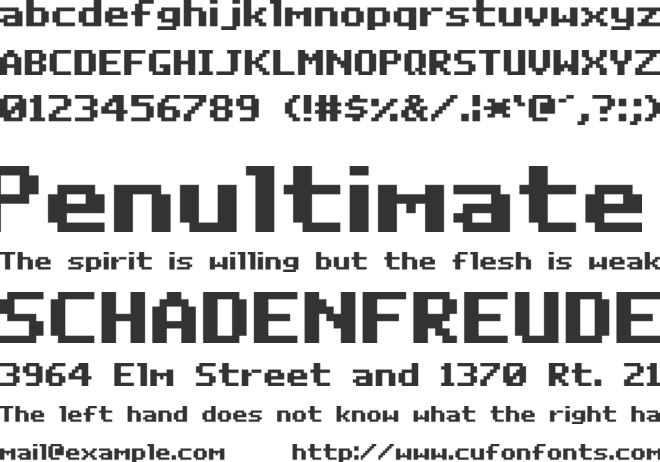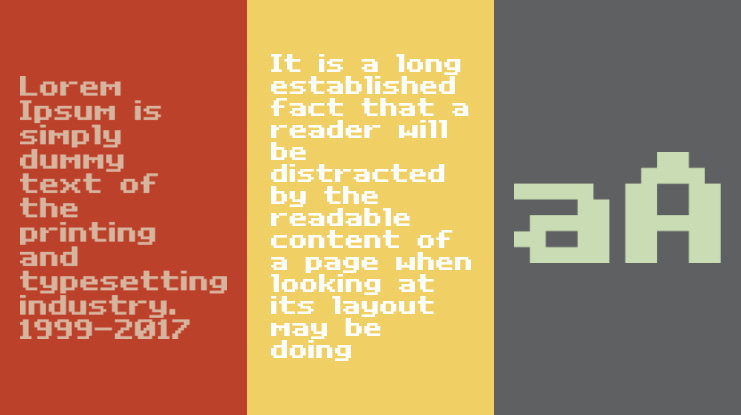
Snowbell Font
True bitmap TTF (and FON) reconstruction of the System font in a particular version of EA's DeluxePaint II, used in several different videogames. Contains additional glyphs and will render without anti-aliasing most of the time, especially on Windows, as the TTF includes embedded bitmaps for the 8px size (and multiples) in a similar manner to fonts like MS Gothic.